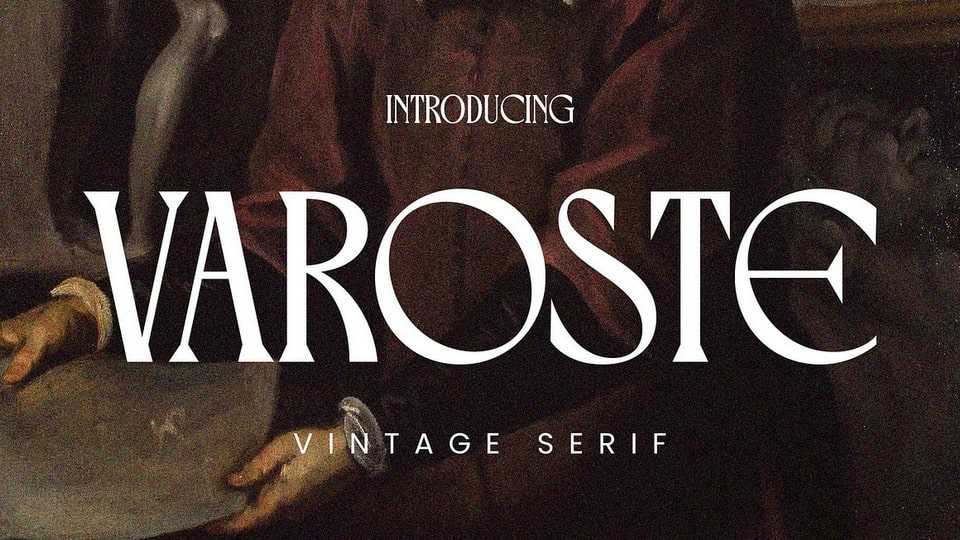
Download Varoste font, a modern vintage condensed display typeface that exudes elegance and sophistication, crafted to bring a timeless charm to your designs.